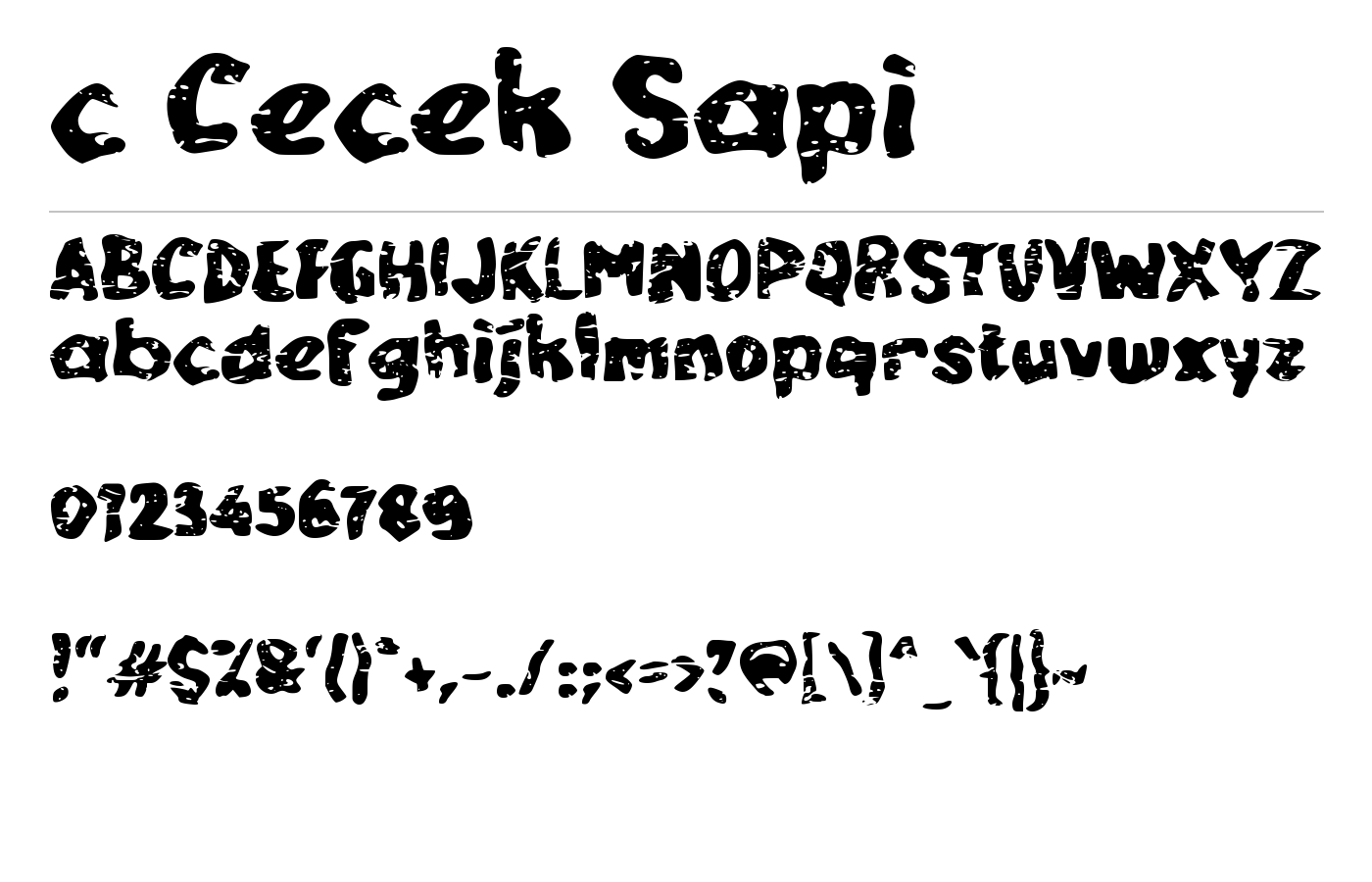
Cecek Sapi is a bold, playful display font with a chunky, irregular design that features rough, textured edges giving it a hand-crafted, almost stamped look. Its quirky, uneven letterforms and moderate x-height create a lively, informal vibe, perfect for fun, eye-catching headlines, posters, or branding that aims for a creative and approachable feel. This font works best where personality and boldness are needed rather than long body text.
c Cecek Sapi Font
About c Cecek Sapi Font